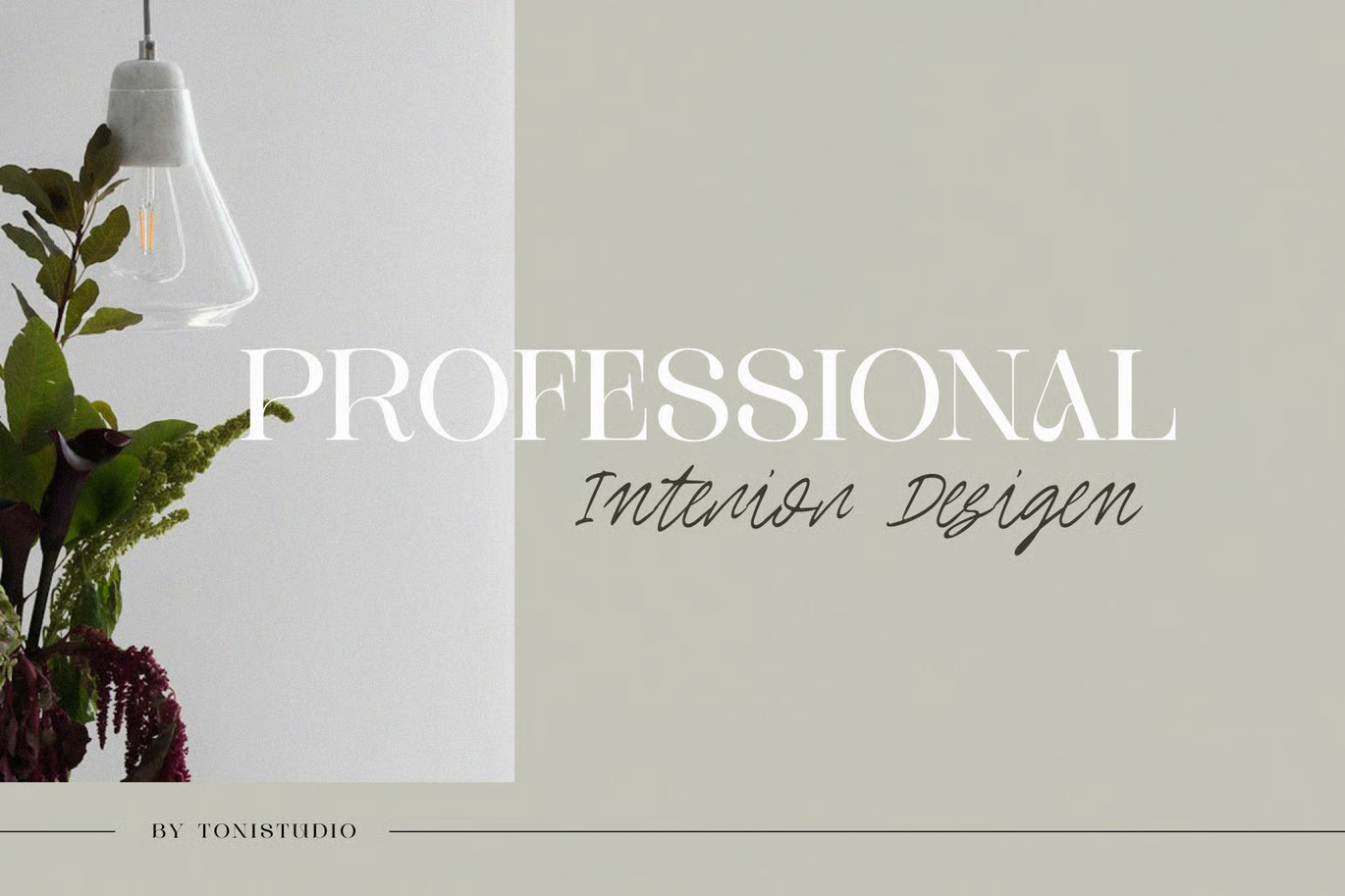
Royal Hefana is a luxurious duo font featuring a classic, elegant serif and a graceful signature script. This combination is designed to achieve a perfect harmony of boldness and softness, making it ideal for classy and memorable designs. With its blend of bold lines and soft curves, Royal Hefana strikes a beautiful balance between traditional elegance and modernity.
The serif font exudes sophistication and strength, while the script adds a touch of fluidity and refinement. When paired together, they create a seamless and stylish combination, perfect for branding, wedding invitations, premium logos, product packaging, and fashion editorials. The Royal Hefana Duo embodies a high-end aesthetic, making it an excellent choice for designers aiming for an elegant, luxurious, and classy look.
Royal Hefana – elegant serif font duo